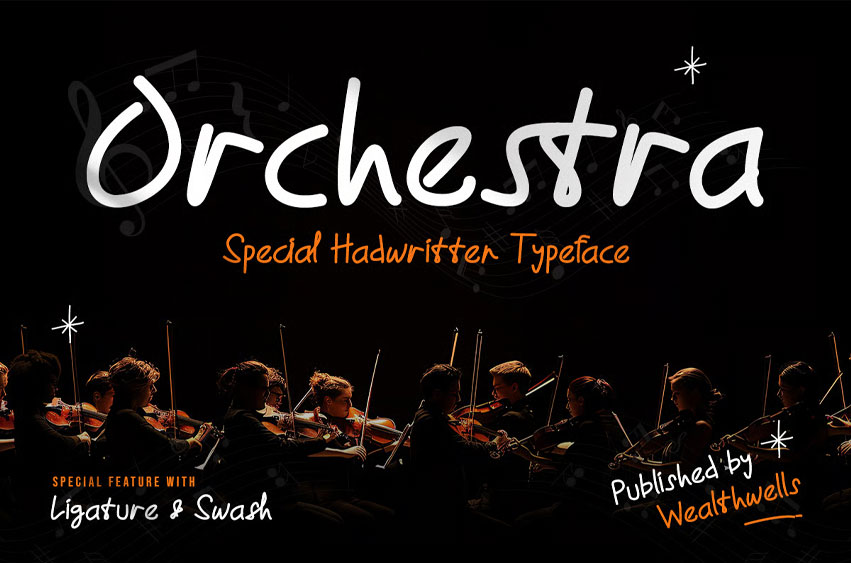
Orchestra Special Font
Orchestra Special Font Handwritten is a charming handwritten font designed to bring warmth and elegance to your creative projects. Ideal for quotes, social media, packaging, apparel, and more, this font blends natural flow with a personal touch.
Its smooth curves and stylish letterforms make it a perfect choice for any design that aims to inspire and delight.
• Ligatures & Alternate